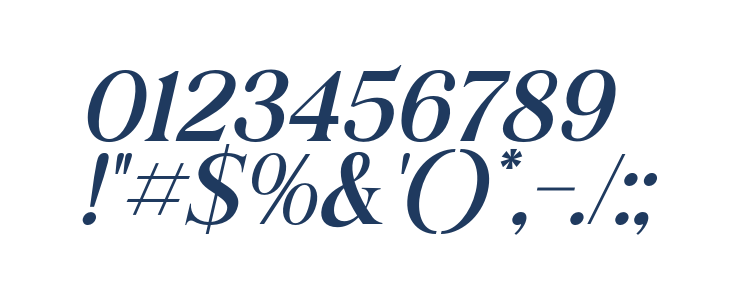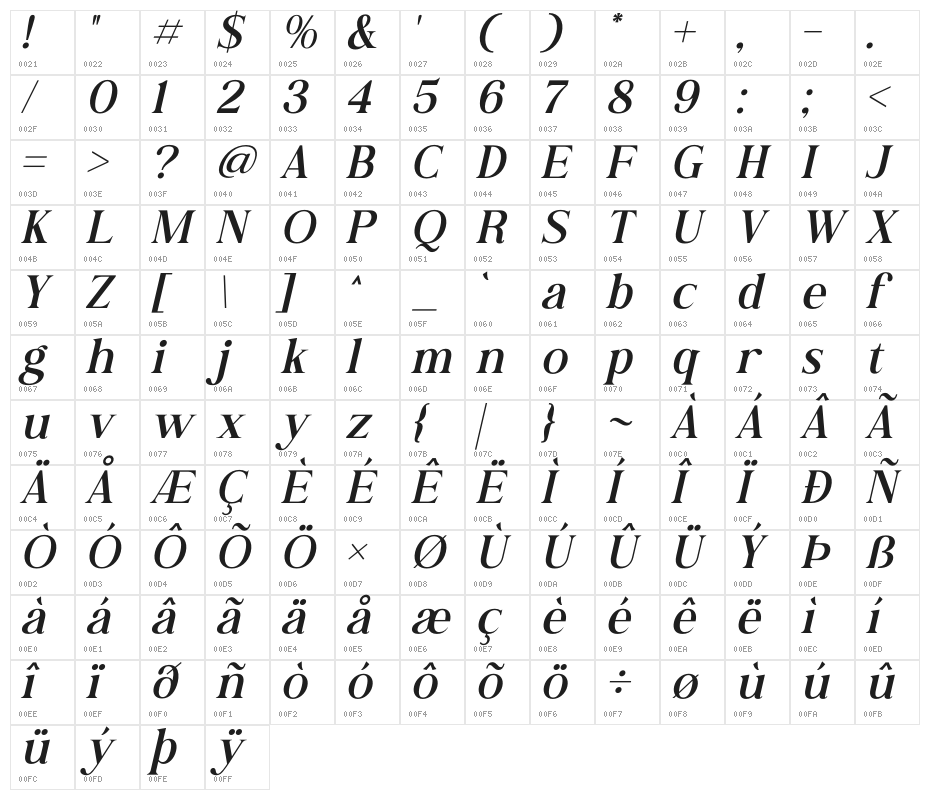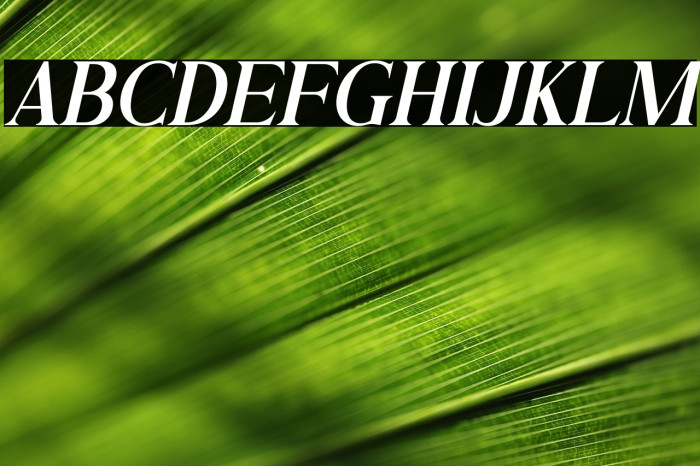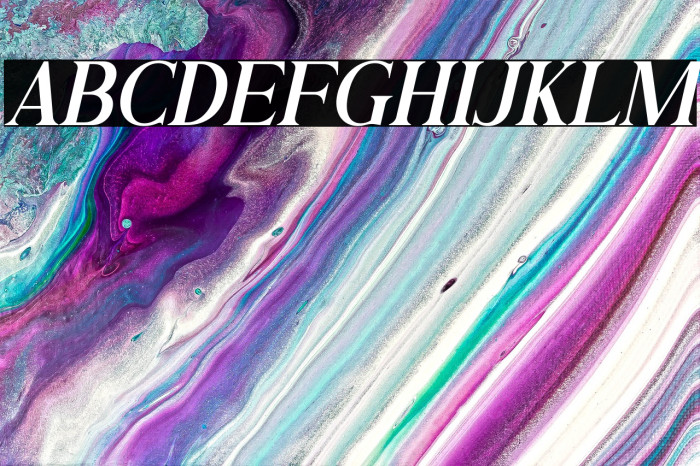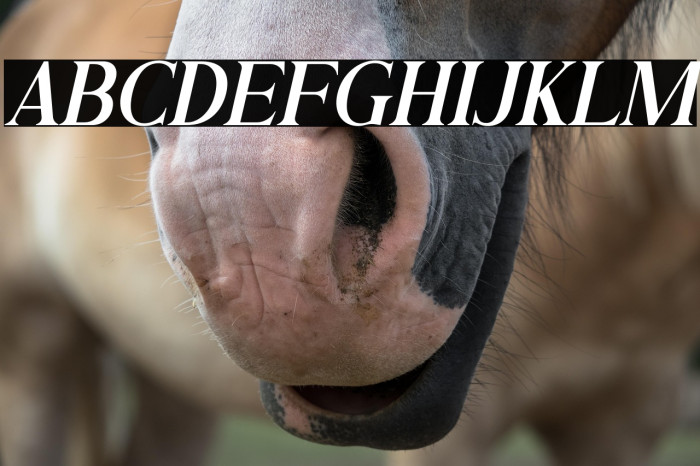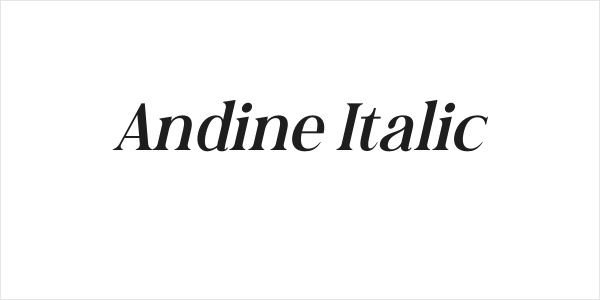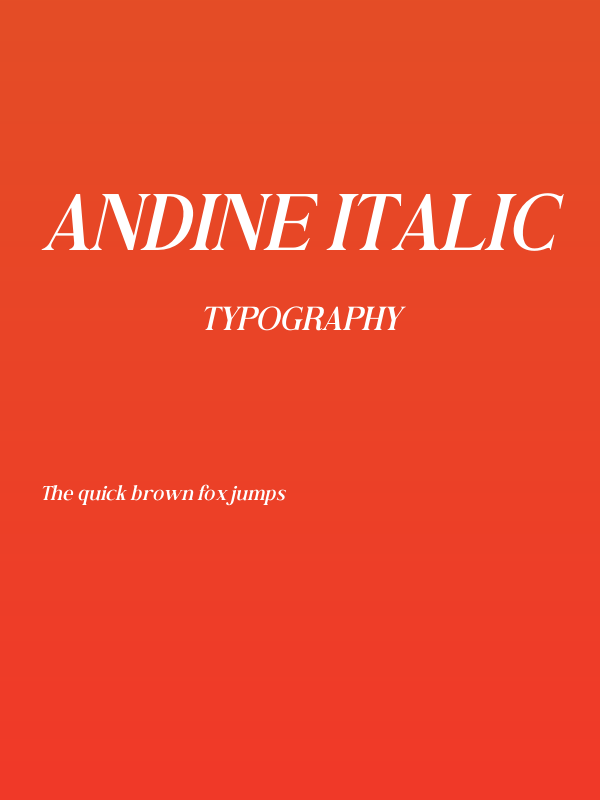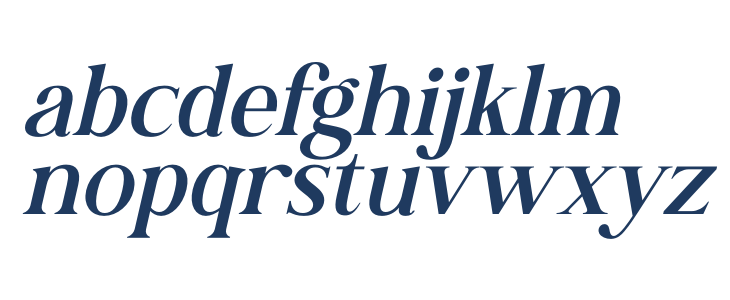
Andine Italic Font
Andine Italic Description
This font features an elegant and sophisticated italic style, characterized by its smooth, flowing lines and moderate contrast between thick and thin strokes. The uppercase letters exhibit a refined slant, adding a sense of motion and grace. The lowercase letters maintain a consistent style, with distinctive curves that enhance readability. Numbers are designed with a classic touch, ensuring clarity and balance. Special characters are seamlessly integrated, maintaining the overall aesthetic. This font is ideal for projects that require a touch of elegance and formality.